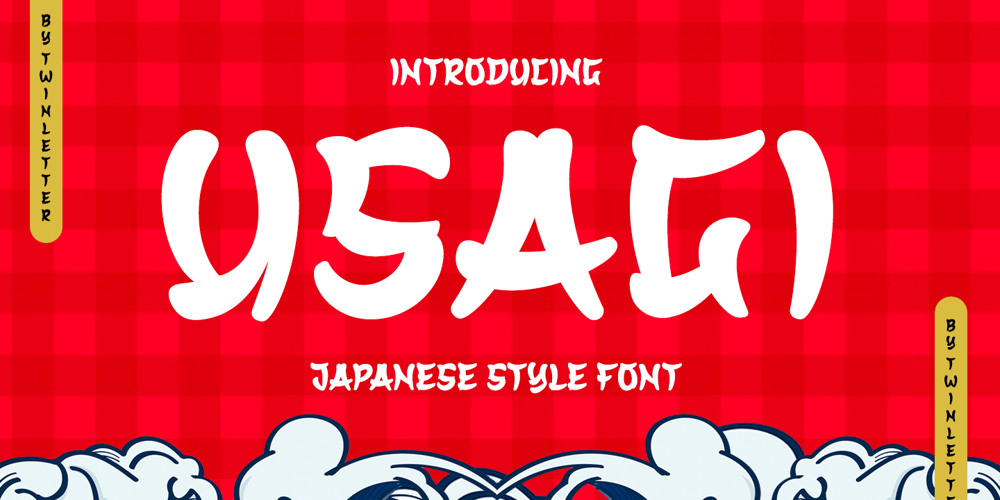
Usagi Faux Font Family was designed by Rozikan and published by Twinletter. Usagi Faux contains 1 styles and family package options. Usagi is a display font created with original handwriting. It was created with the Japanese style in mind, therefore it’s ideal for Japanese-themed projects.If you utilize this font in all of your projects, you will achieve a stunning, appealing, and great result.Logotypes, food banners, branding, brochure, posters, movie titles, book titles, quotes, and more may all benefit from this font.Of course, using this font in your various design projects will make them excellent and outstanding; many viewers are drawn to the striking and unusual graphic display.Start utilizing this typeface in your projects to make them stand out